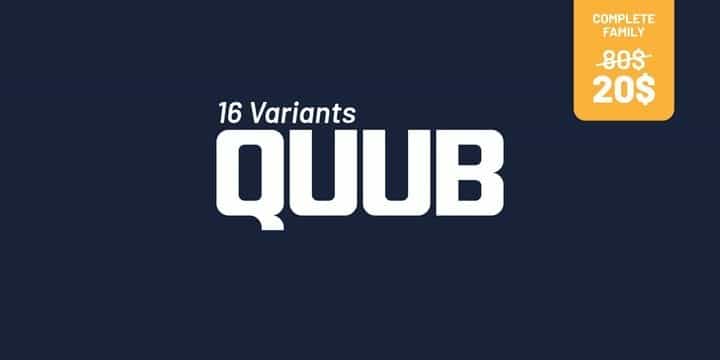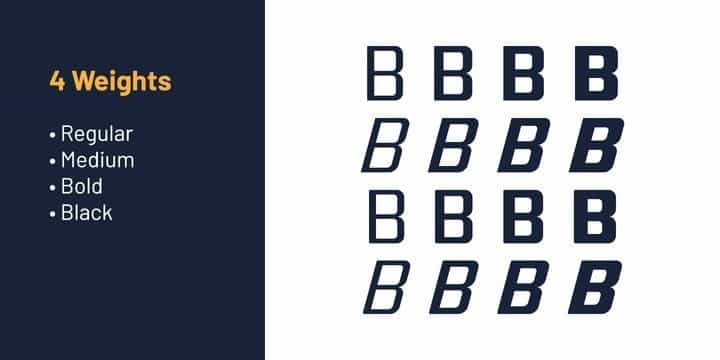
Quub is a minimal and clean display typeface that has 16 different fonts as well as ligatures, and multilingual support. It’s a versatile typeface that is great for both small and large sizes.